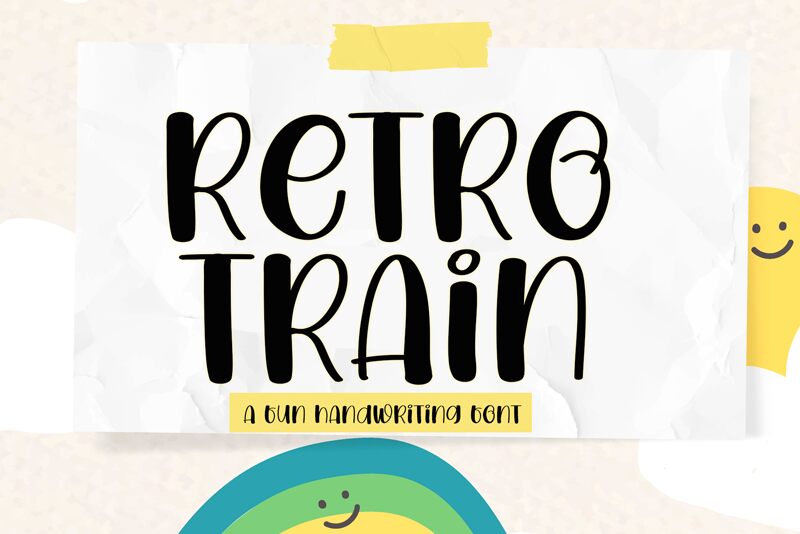
Retro Train font by Creatype Designer is a free script font blending informal style with nostalgic charm. Whimsical and impactful, this font has a handwritten aesthetic, perfect for creative projects with a youthful vibe. Casual elegance and quirky touches come together for an eye-catching design allowing for versatile applications.
Retro Train font has a warm and inviting feel; use it to recreate childhood memories in imaginary fairytales. This lovely typeface also suits book covers, logotypes, invitation cards, stationery designs, comic titles, advertisements, or titles on headings. With its unique yet contemporary appeal, it is also suitable for signatures, greeting cards, quotes, and posters.
This font retains a classy calligraphic influence while feeling contemporary and fresh. Its versatility makes it suitable for a wide range of creative projects, from letterheads and titles to stationery.